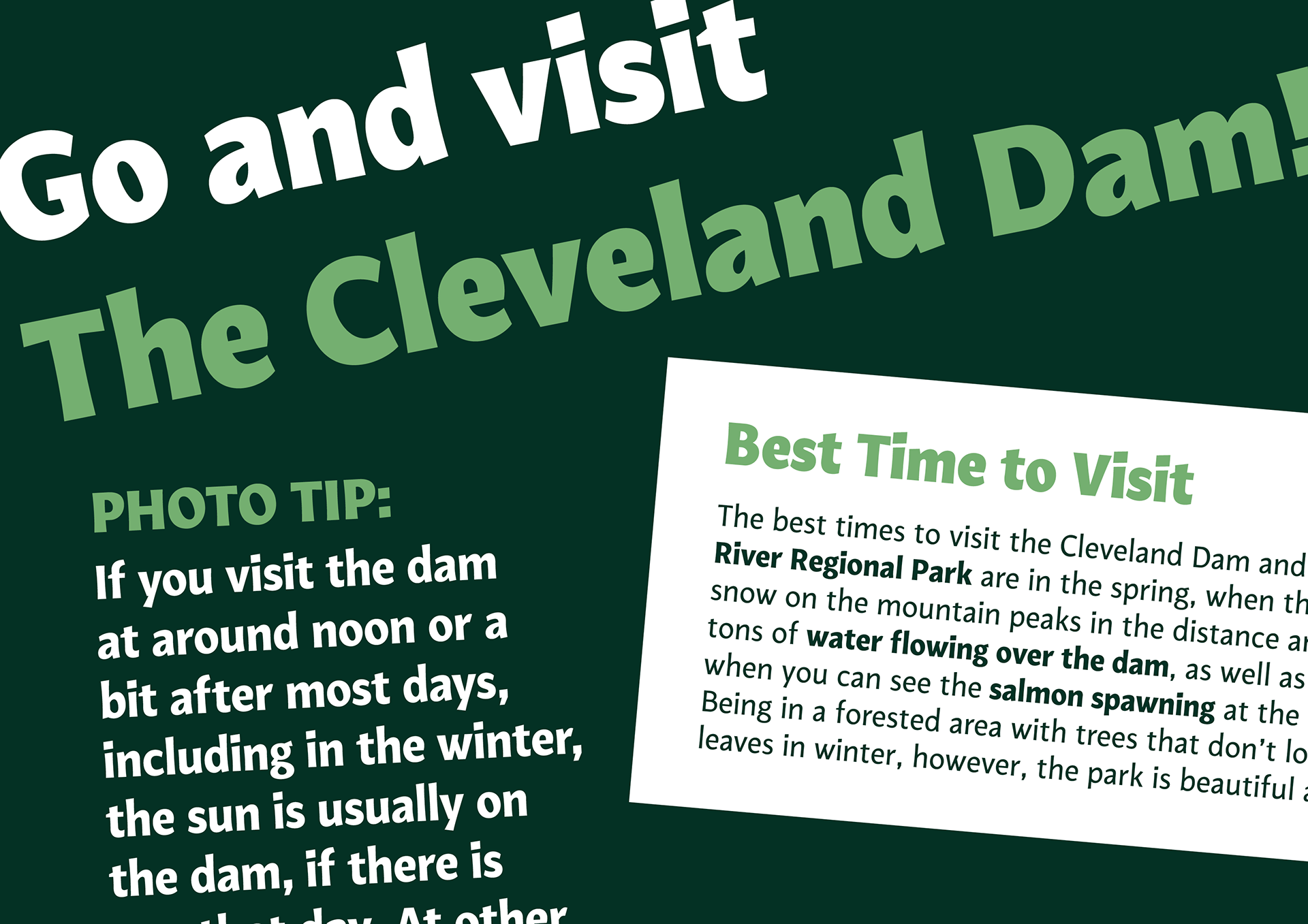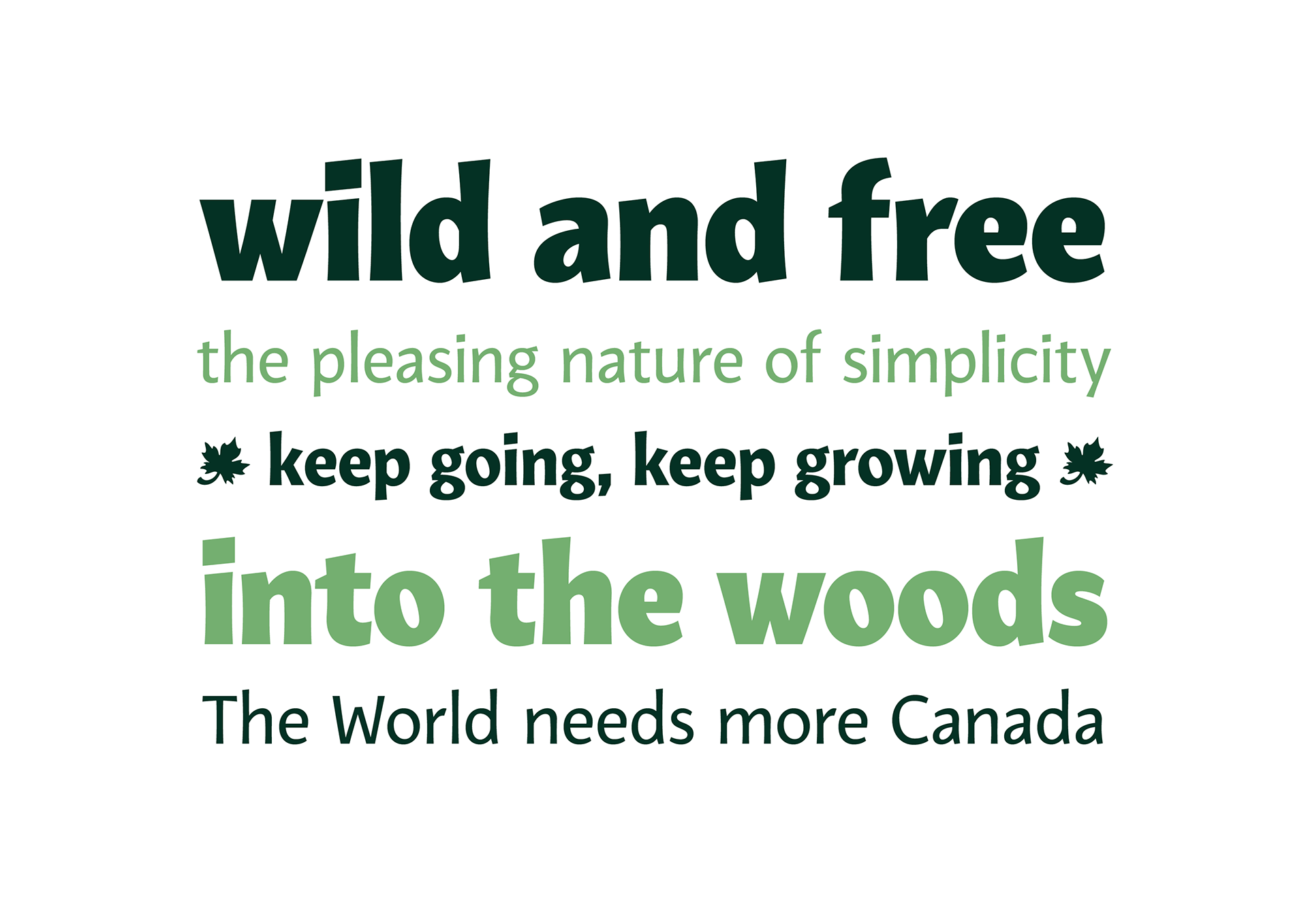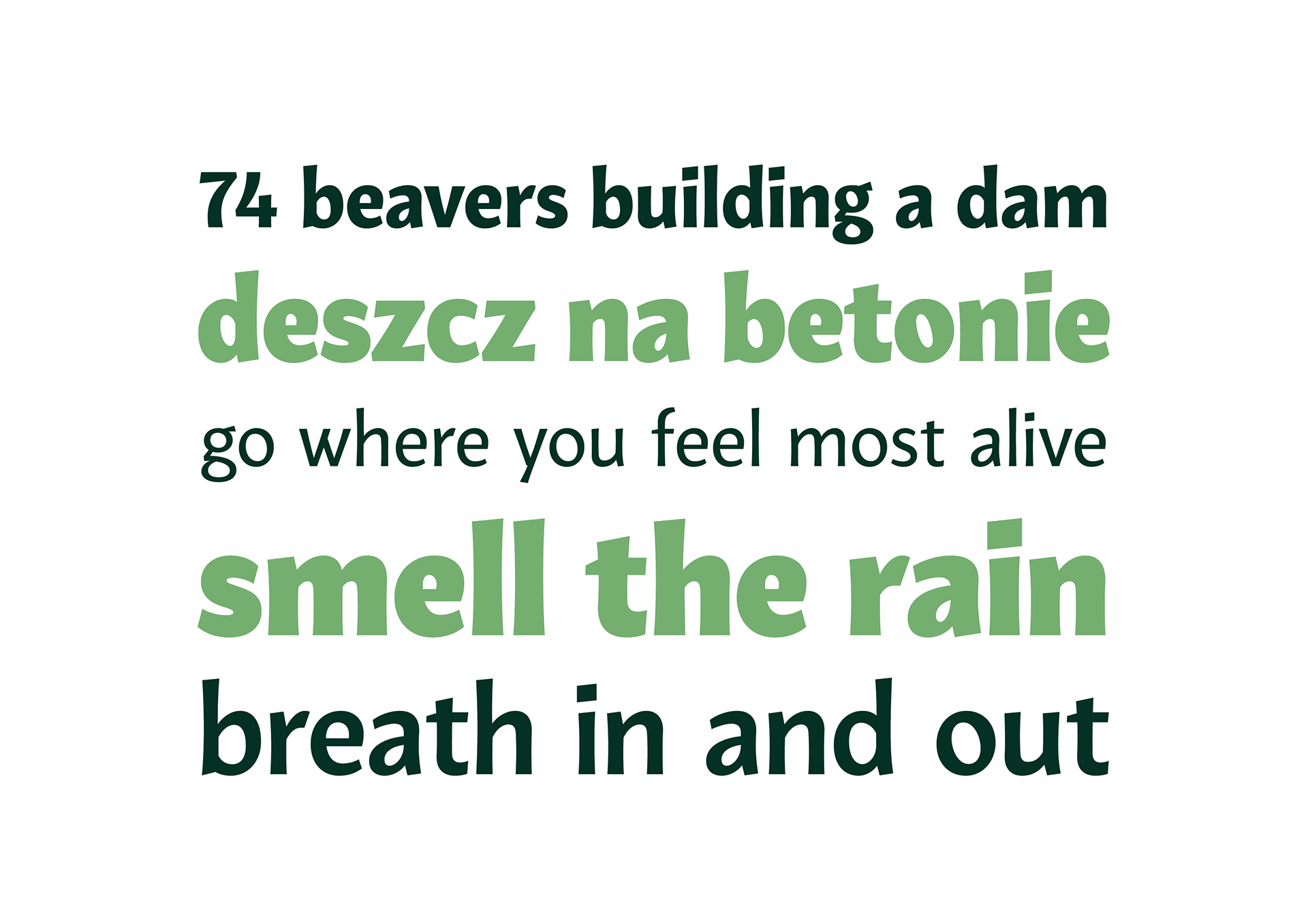
Capilano is a humanist sans family with a organic voice, inspired by nature and the native wilderness of Canada’s parks and forests. It features a large x-height, asymmetrical axis and open counters with widths ranging from Regular to Black. The family is made to be flexible and fit to any hierarchy a user might need - with contemporary feel, its ready to support range of different mediums. Capilano’s organic spirit is friendly and welcoming, while being highly functional.